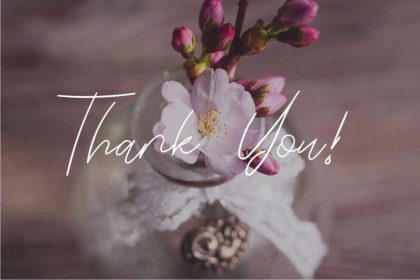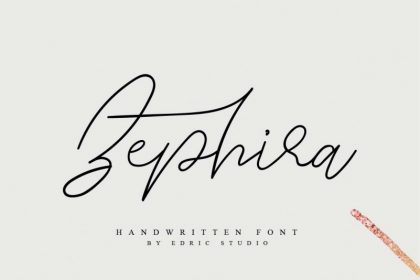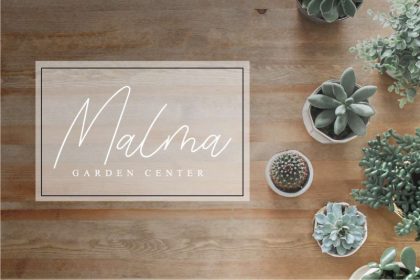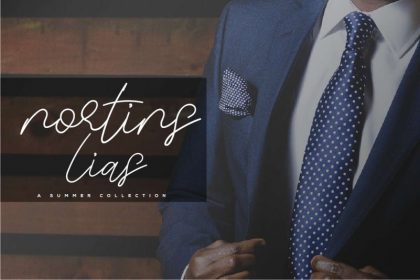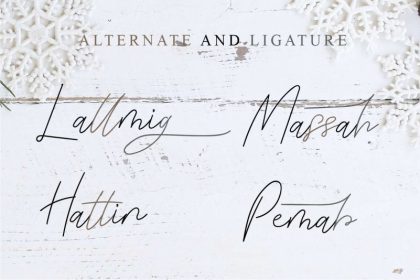
Zephira Signature Font
Zephira is a Signature Font with natural characters and glyphs. It is speacialy made for anyone who are looking for natural handwritting signature font. The font was made by our lovely lettering artist, here in Bandung, Indonesia. Zephira Signature Font has a great set of gplyhs. With little creativity, this font will match and suitable on any of your designs concept. Zephira Signature Font is a modern decorative signature font with natural handwriting style. With extended license, it will be perfect for branding, logo, stationery, card, signage, flyer, brochure, promotion etc. It also has multi languages characters on it